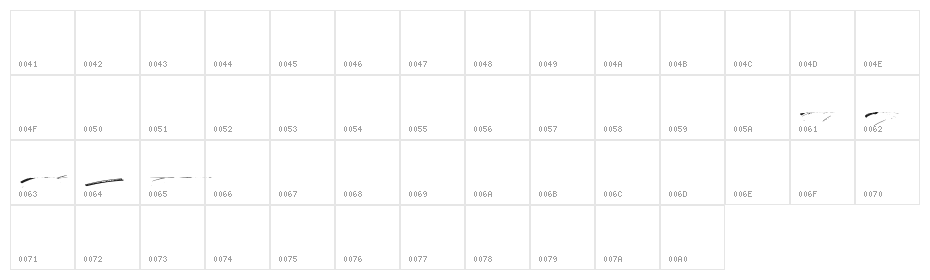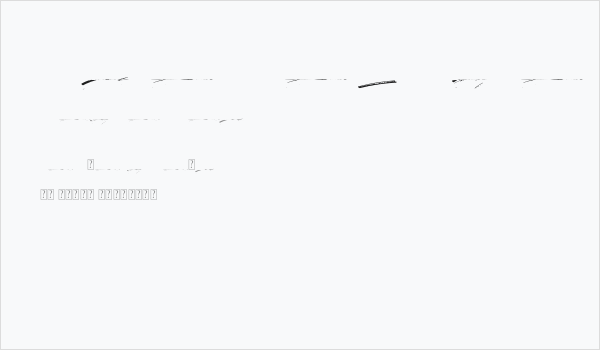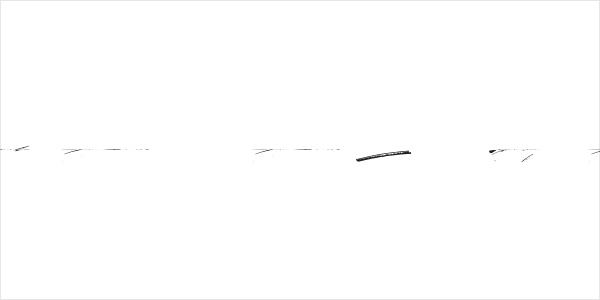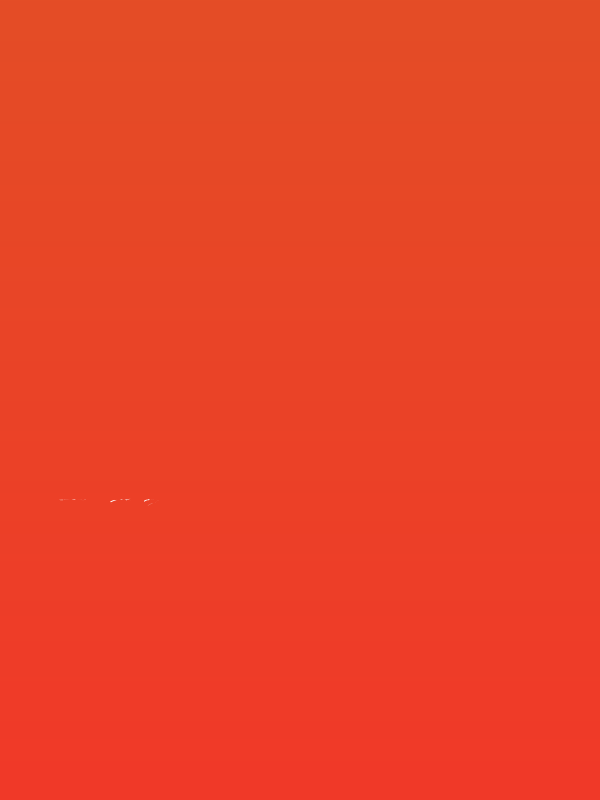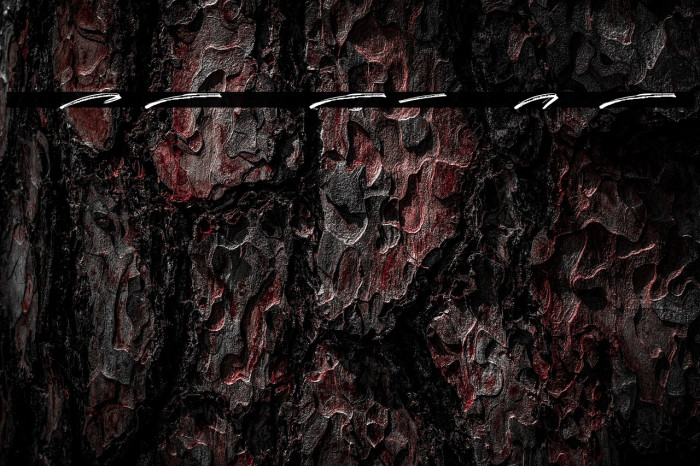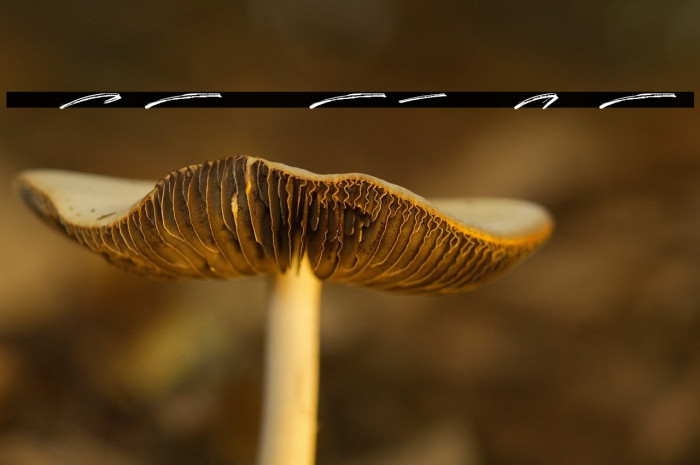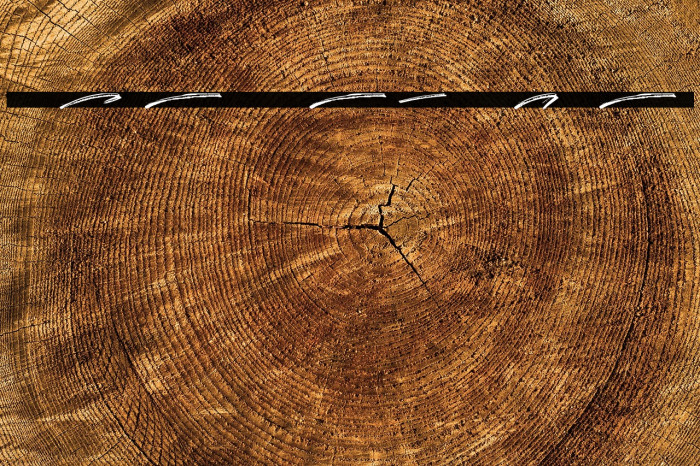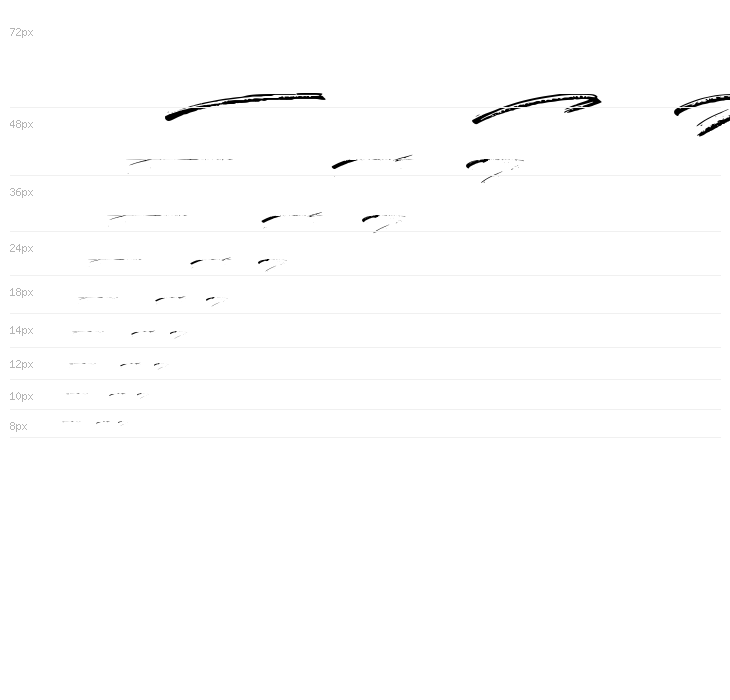
Rocket Shield Swashes Font
Rocket Shield Swashes Description
This font is characterized by its dynamic and fluid strokes, reminiscent of calligraphic swashes. The design incorporates elegant curves and flowing lines, creating a sense of movement and grace. The strokes vary in thickness, adding a lively and artistic touch. The overall appearance is both sophisticated and playful, making it suitable for creative and expressive projects. The font's unique style can enhance visual interest and convey a sense of elegance and flair.
| Proposed Projects | Ideal for wedding invitations, greeting cards, branding, and artistic posters. |